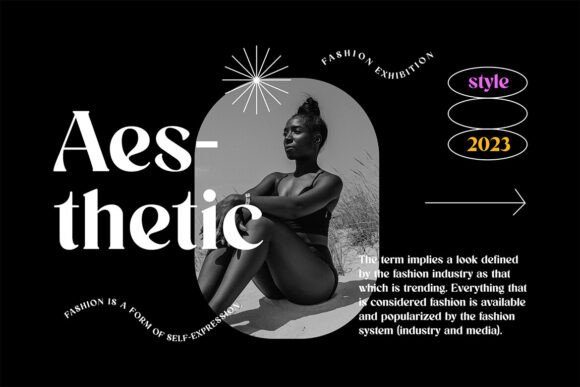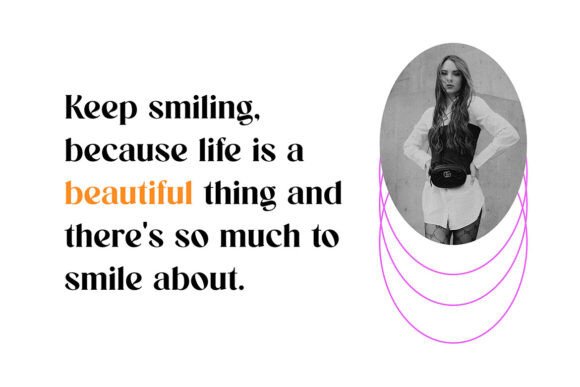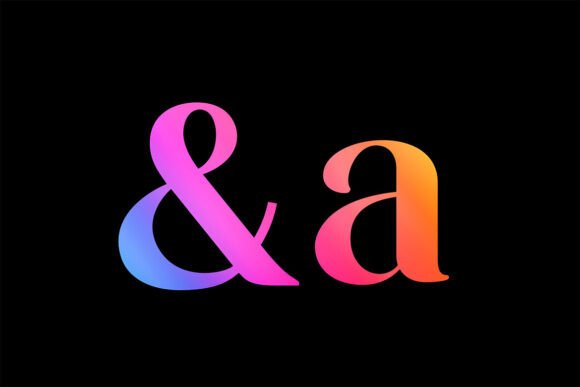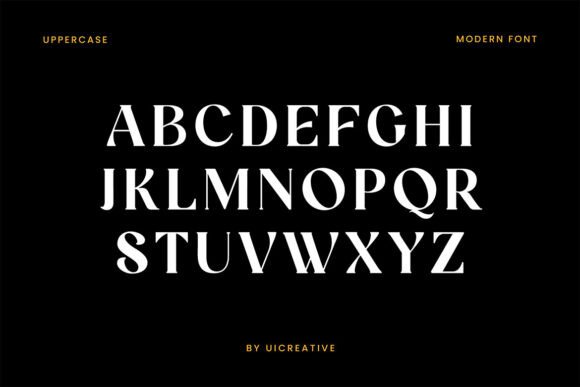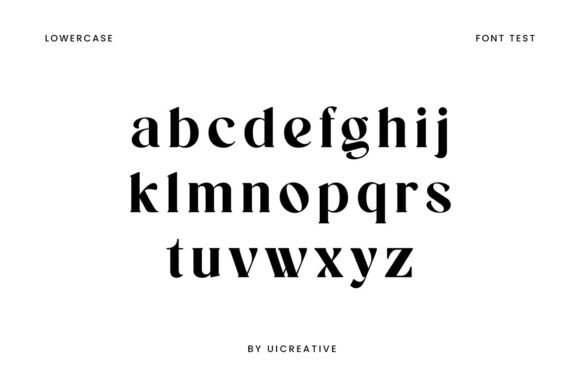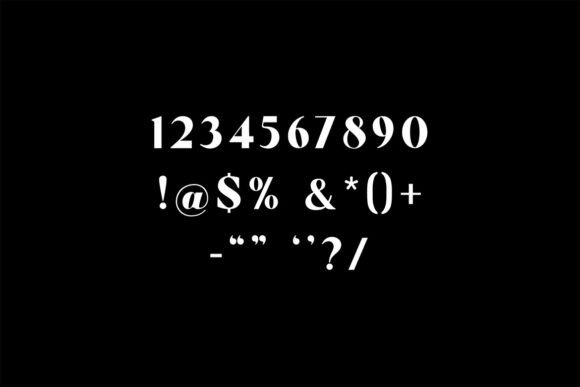
Introduction to Meditative Font
As designers, we’ve all been there – staring at a blank canvas, waiting for inspiration to strike. For me, it was a quiet morning in a quaint café, sipping on a cup of coffee, and browsing through typography resources online. That’s when I stumbled upon the Meditative Font, a stunning classic serif typeface that immediately caught my attention. Its elegant design and versatility made me wonder – what makes this font so special, and why should designers consider it for their next creative project?
The Meditative Font is more than just a pretty face; it’s a high-quality design resource that can elevate any project from signature to website headers. With its transparent background and refined aesthetic, it’s the perfect choice for fashion-related branding, editorial design, or any other creative endeavor that requires a touch of sophistication.
Key Features of Meditative Font
- Unique and elegant design, perfect for creative projects requiring a calming atmosphere
- Transparent background option for seamless integration with any design
- Simple and clean design aesthetic, allowing for easy customization and modification to suit specific design needs
Honest Review: Meditative Font
As a designer, I’m always on the lookout for high-quality design resources to enhance my creative projects. Recently, I stumbled upon the Meditative Font, and I’m excited to share my thoughts on this beautiful typography.
- High-quality vector graphics: The Meditative Font is crisp and clear, making it perfect for digital designs.
- Limited character set: The Meditative Font has a relatively small character set, which may not be suitable for longer texts or complex designs.
- No bold or italic options: While the font is beautiful, it would be great to have bold and italic options to add more depth to my designs.
Overall, I’m impressed with the Meditative Font’s simplicity and elegance. It’s a great addition to my design resource library, and I’m excited to see how it will enhance my future creative projects.
For the best results, use the Meditative Font in conjunction with other high-quality design resources. Experiment with different font sizes, colors, and styles to create a unique look. You can also use the Meditative Font in combination with images or other graphics to add depth and interest to your design.
The Meditative Font is perfect for use in a variety of creative projects, including infographics, posters, and social media graphics. It’s also great for use in business presentations, reports, and other professional documents. Whether you’re working on a personal or professional project, the Meditative Font is a valuable design resource that can help you create a high-quality, visually appealing design.
Alternatives to Meditative Font
Meditative Font is a popular choice for designers due to its elegant and calming aesthetic. However, there are other high-quality fonts that can add a similar touch to your creative project. Here are a few alternatives to consider:
Pacifico is a beautiful, cursive font that is perfect for adding a touch of elegance to your design. It features a transparent background, making it easy to overlay on images or other design elements. When to use: Use Pacifico for invitations, wedding designs, or any project where you want to convey a sense of romance and sophistication. Compared to Meditative Font, Pacifico has a more relaxed and casual feel, making it ideal for projects that require a softer tone.